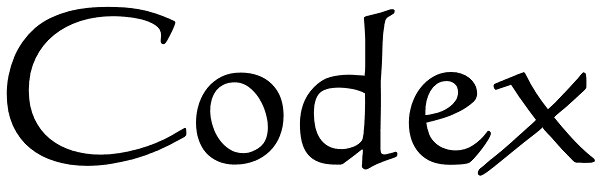
Codex
Codex was designed by Georg Trump and introduced by the font foundry C.E. Weber in 1954. Based on the German Gothic script of the 13th century, this font has the character of handwriting. Its capital letters are extremely big in comparison with the...